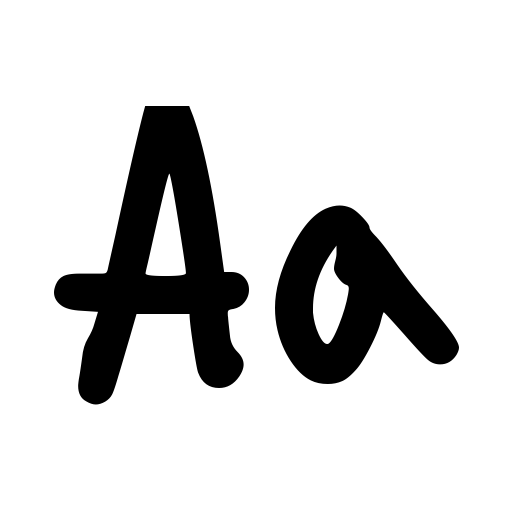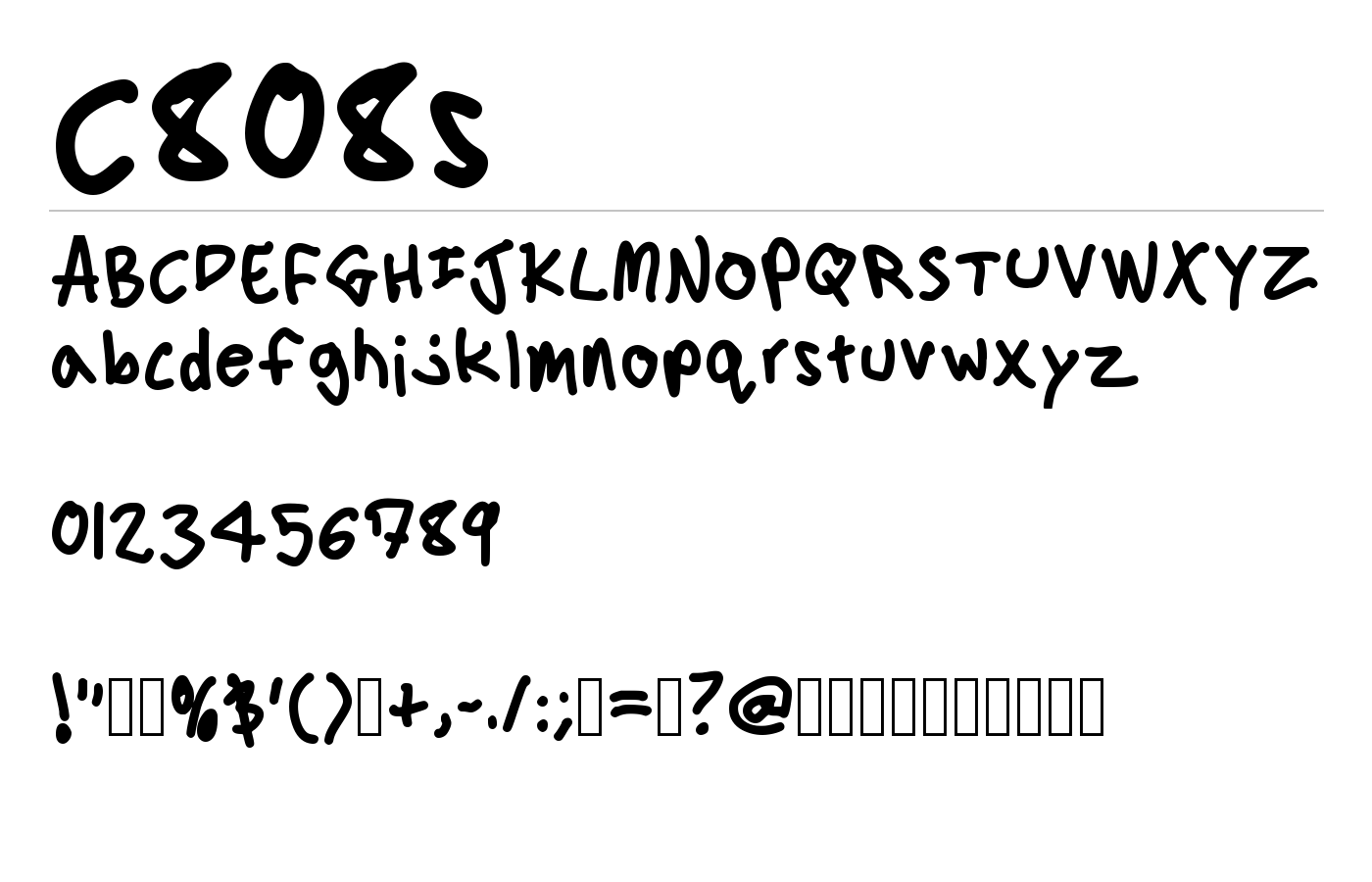
C808s is a playful handwritten sans serif font with an informal, casual style. Its uneven strokes and quirky letterforms give it a friendly and approachable feel, making it perfect for creative projects, kids' content, and relaxed branding. This font works well in headlines, invitations, and any design that benefits from a personal, hand-drawn touch.
C808s Font
About C808s Font